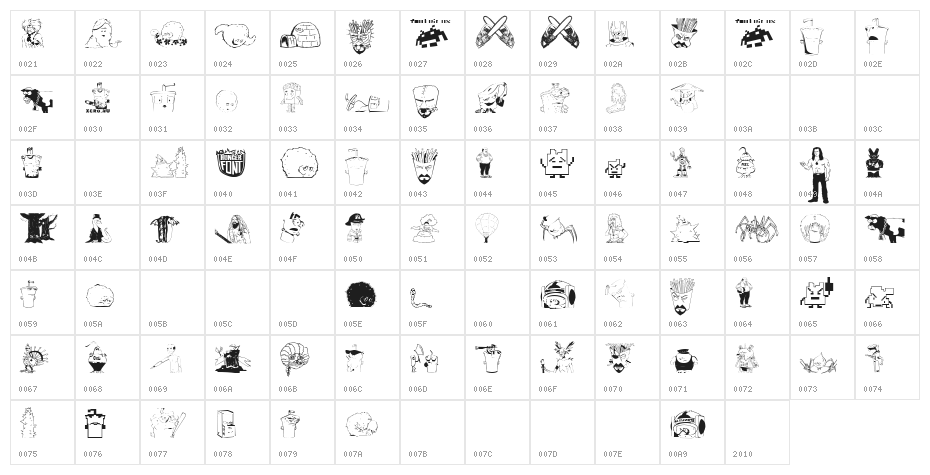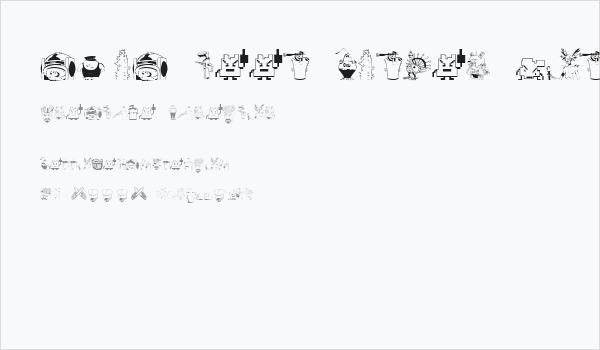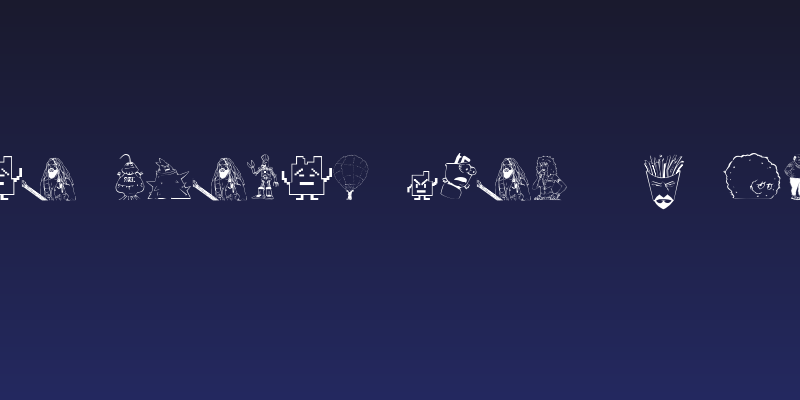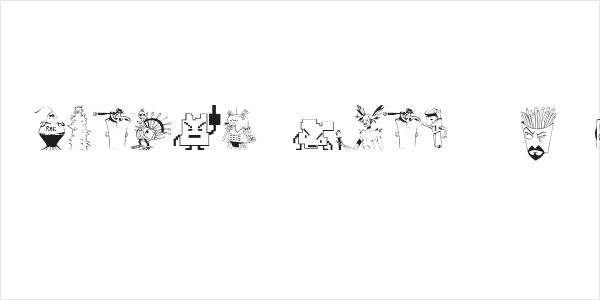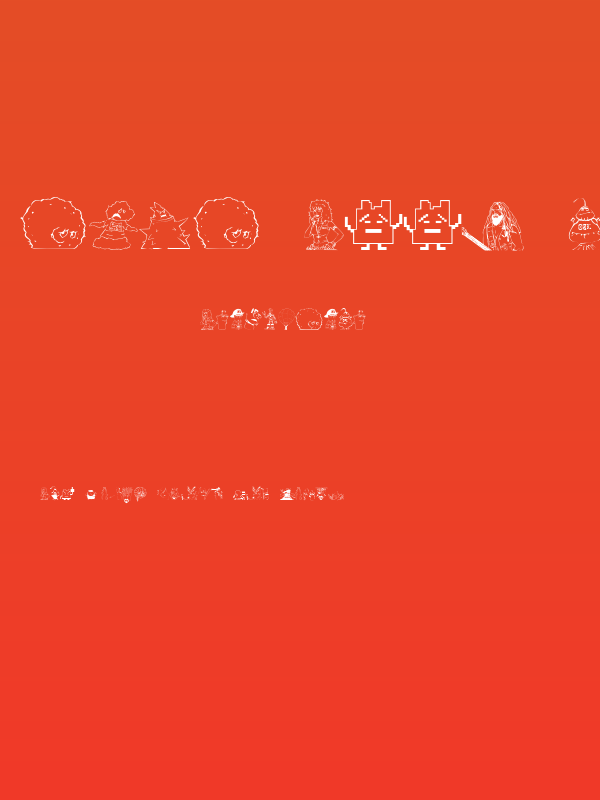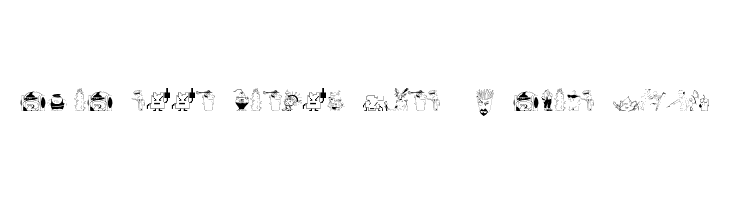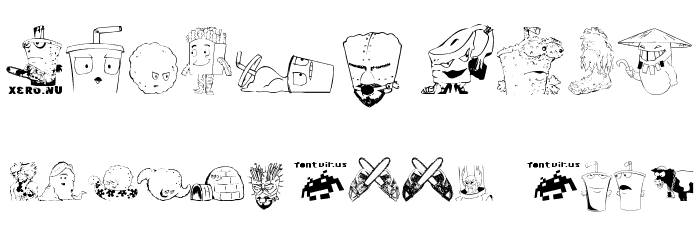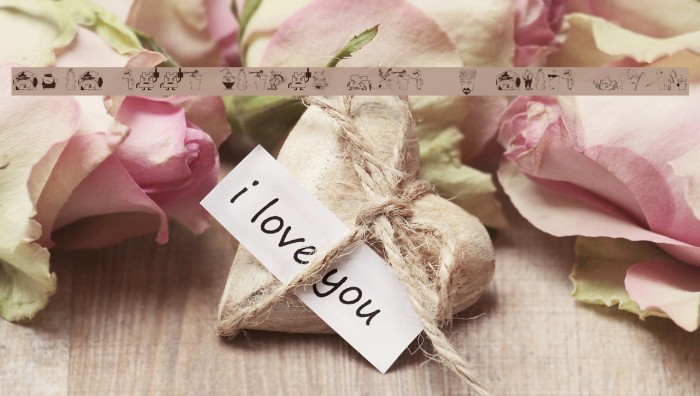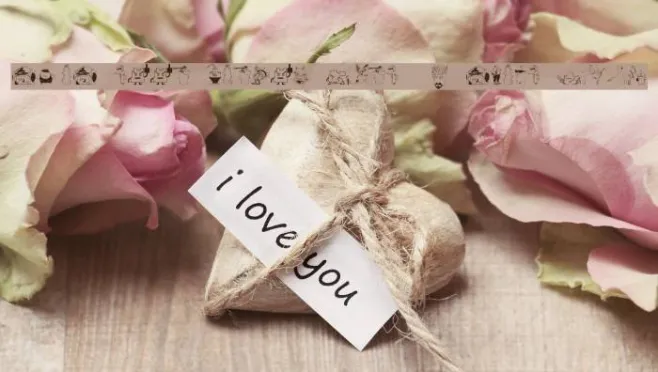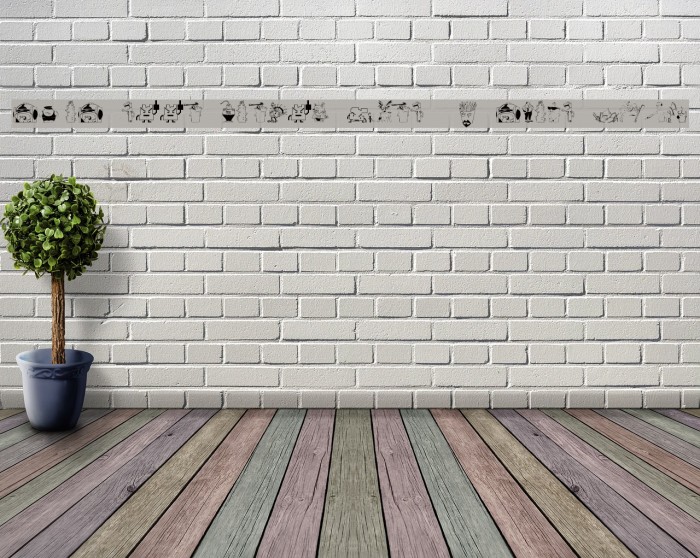
aqua teen hunger font c adult swim Font
aqua teen hunger font c adult swim Description
A highly decorative and illustrative font composed entirely of detailed character drawings and icons from a specific animated television series, with each glyph representing a unique character or object rather than a traditional letterform.
| Overall Style | Decorative, Cartoon, Whimsical |
| Use Case | Logos, Posters, Themed Graphics, Merchandise |
| Proposed Projects | Fan art posters, themed party invitations, parody graphics, collectible merchandise, comic strips. |